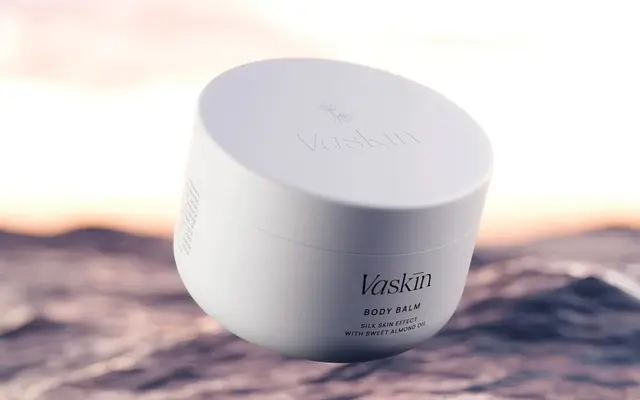
PP Pangaia
Pangram Foundry · Samuel Salminen, Mat Desjardins, Francesca Bolognini · 2023
PP Pangaia specimen from Pangram Foundry
An organic serif by Samuel Salminen with Pangram, drawn from natural forms and shipped in 18 styles plus a variable cut.
Pangaia is an organic serif of nine weights and matching italics, designed by Samuel Salminen with Mat Desjardins and Francesca Bolognini. The forms blend traditional serif structure with curves and swashes drawn from leaves, riverbanks and rolling landscape. With 18 styles, swash italics and a variable cut, it stretches across book setting, branding and editorial display.